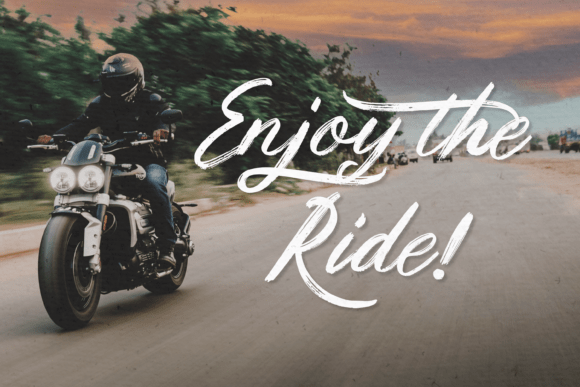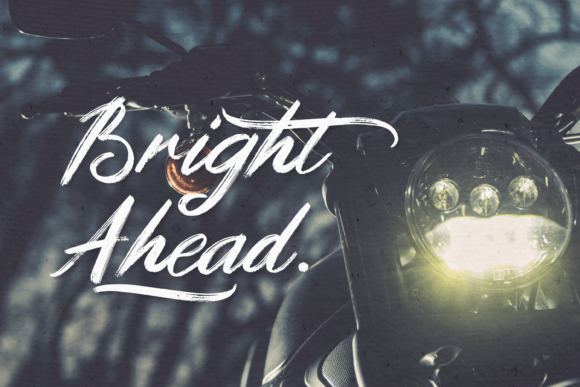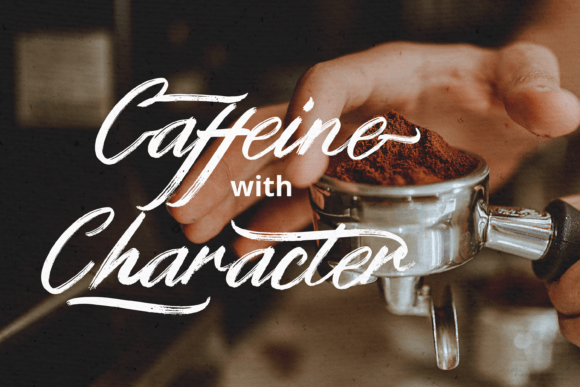
Introduction to Kangote Font
Kangote Brush is a textured brush font, a contemporary approach to design, handmade and natural, with an irregular baseline.
Kangote for use in title design Such as apparel, invitations, book title, stationery design, quotes, branding, logos, greeting card, t-shirt, packaging design, poster, and more.
Key Features of Kangote Font
Why Choose Kangote Font?
Kangote Font offers exceptional quality and versatility, making it a valuable addition to your design toolkit. Whether you’re creating for personal projects or commercial use, Kangote Font delivers professional results.